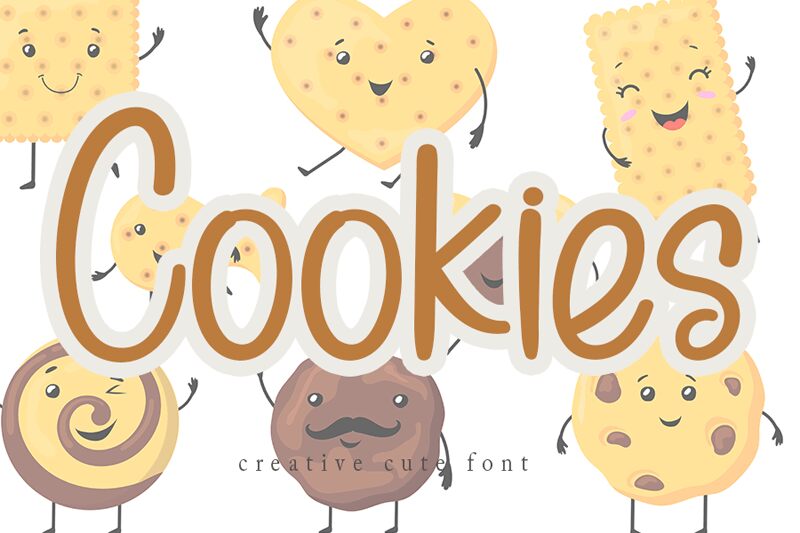
Cookies
Cookies, designed by Etik Fatimah, embodies the charm and approachability of handwritten script with a semi-light weight that ensures readability without sacrificing personality. The font’s playful yet elegant contours create a sense of warmth and informality, reminiscent of a friendly note or an artisan shop's signage. Its organic curves and slight variations in stroke width convey a casual sophistication that is versatile enough for a variety of creative applications.
Whether it graces the pages of an intimate invitation, adds character to branding projects or serves as the voice for whimsical graphics, Cookies stands out with its distinct aesthetic appeal. Its handwritten style lends authenticity to designs seeking a personal touch while maintaining clarity and visual comfort.
Embrace the delightful artistry of Cookies for projects that require a font with heart—a typeface not just seen but felt.